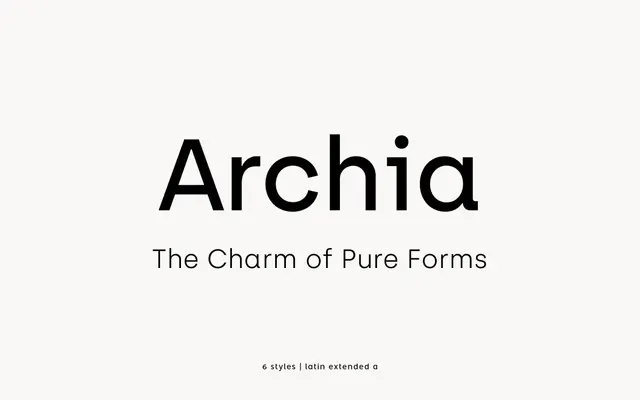
Archia
A six-weight geometric sans with a single-storey a, drawn for branding, signage and interface work.
A geometric sans by atipo foundry with a single-storey a, low stroke contrast and a tidy, slightly technical voice. The family runs through six weights from Thin and Light to Regular, Medium, SemiBold and Bold. OpenType features include tabular figures for tables and financial layouts, plus pre-designed fractions, numerators, denominators, superscript, scientific inferiors and ordinals. Language coverage takes in the main Latin scripts of Western, Central and Northern Europe.
A geometric sans with single-storey a, low contrast and a neutral, slightly technical voice. Built for branding, signage and interface use rather than long-form text.